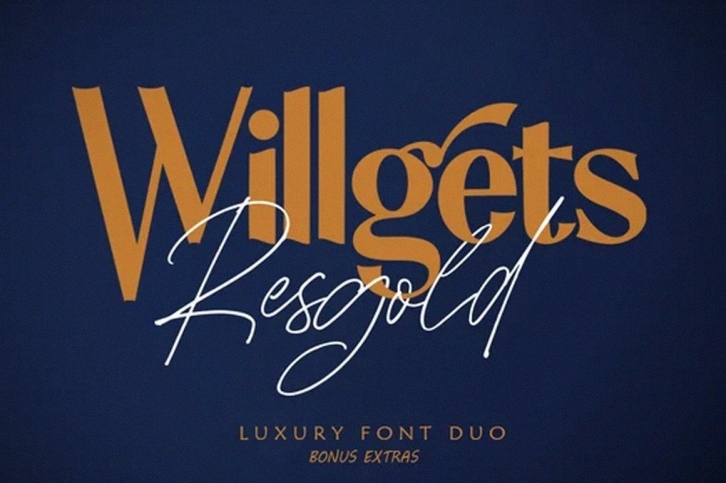
Resgold Willgets is a luxury font duo consisting of an elegant script and a beautiful serif, both very attractive.
Resgold Willgets Script looks very clean and attractive.
Resgold Willgets Serif is a stylish and modern Serif.